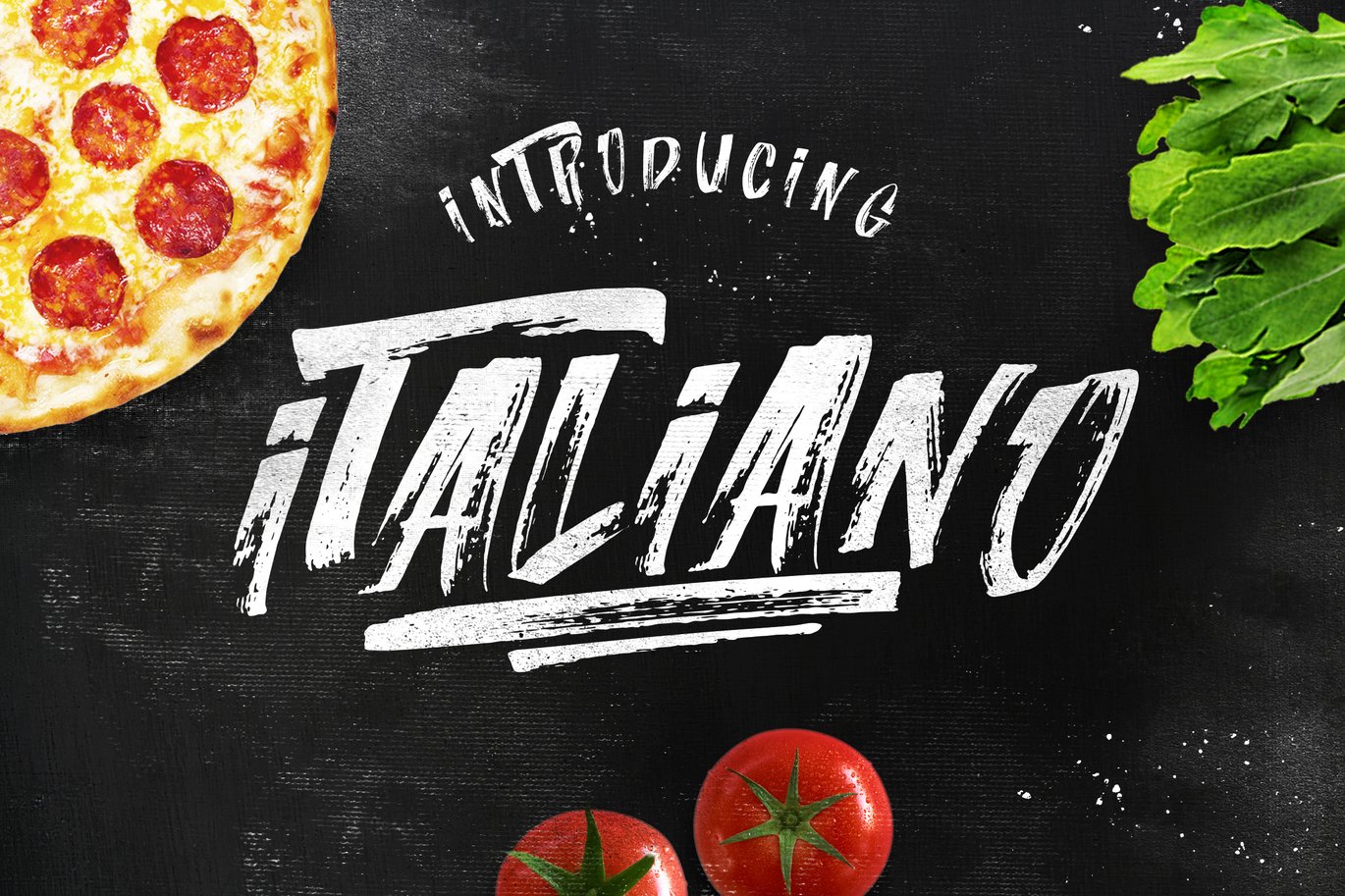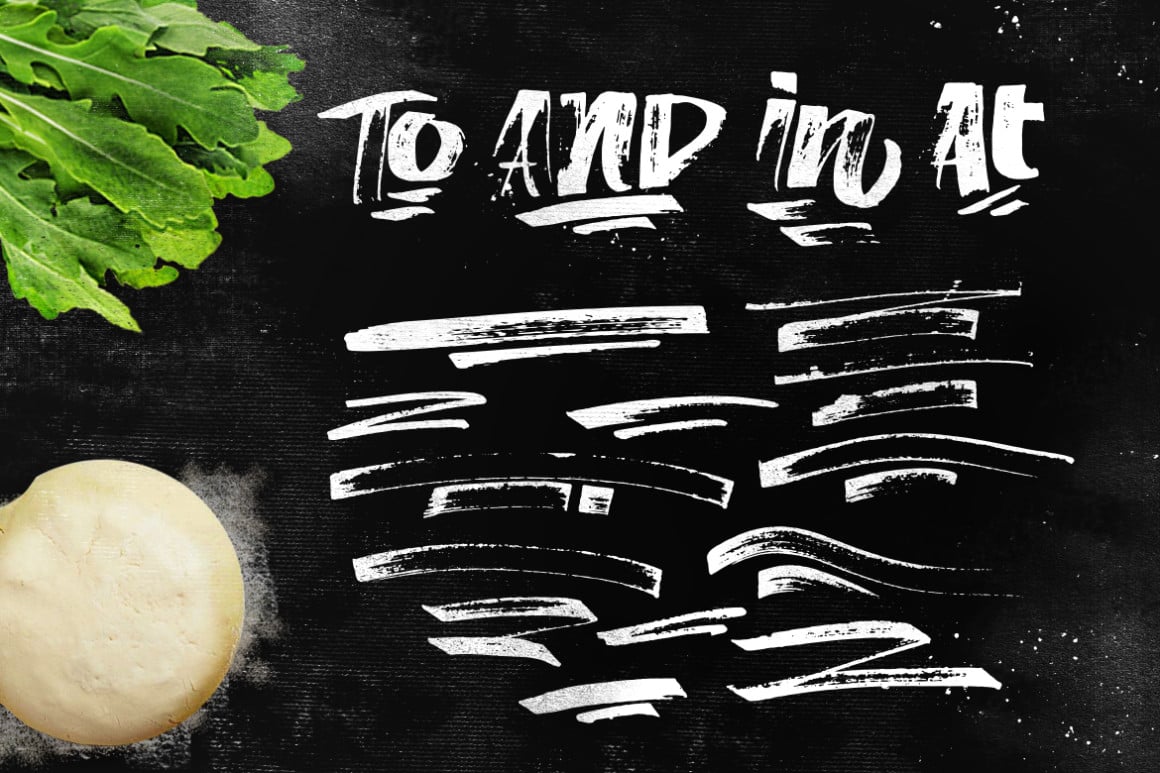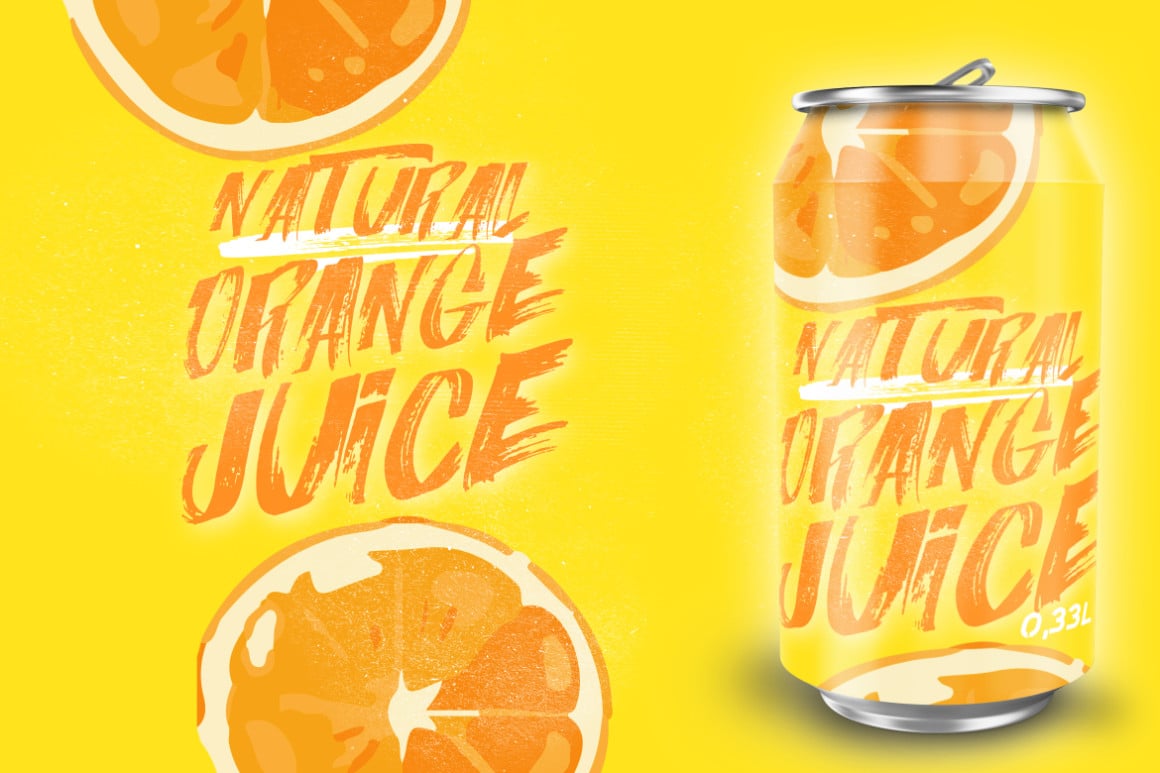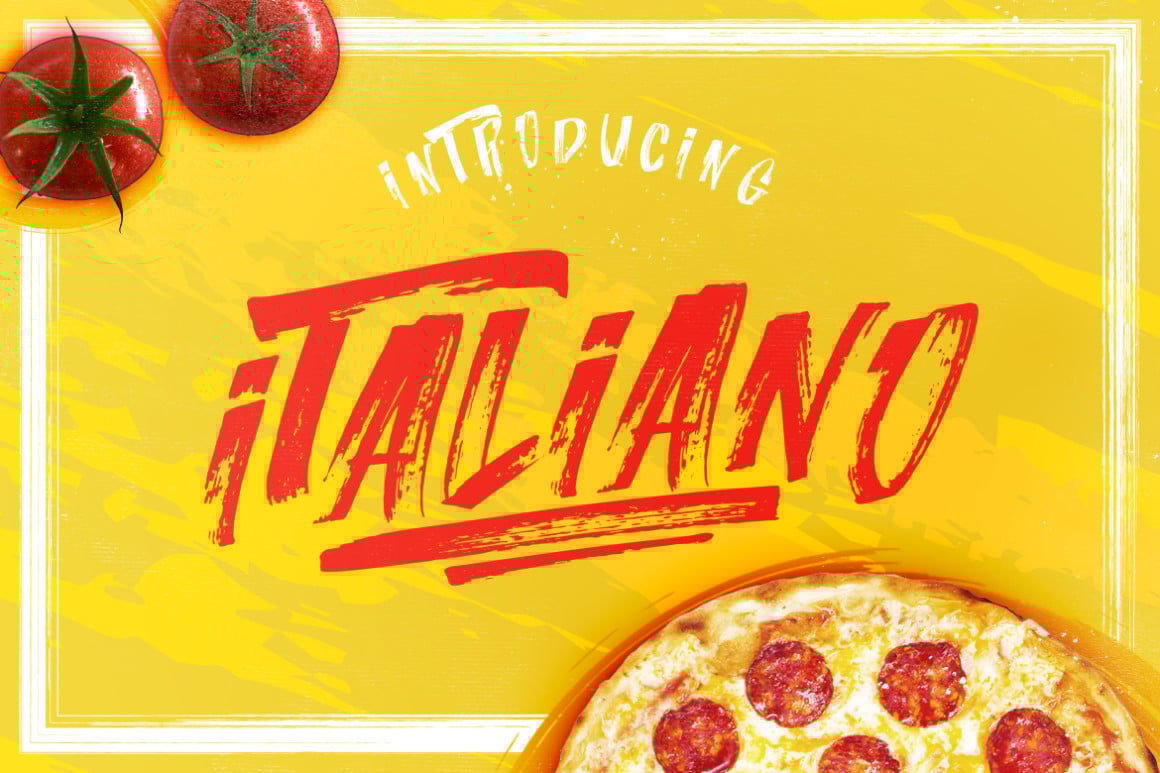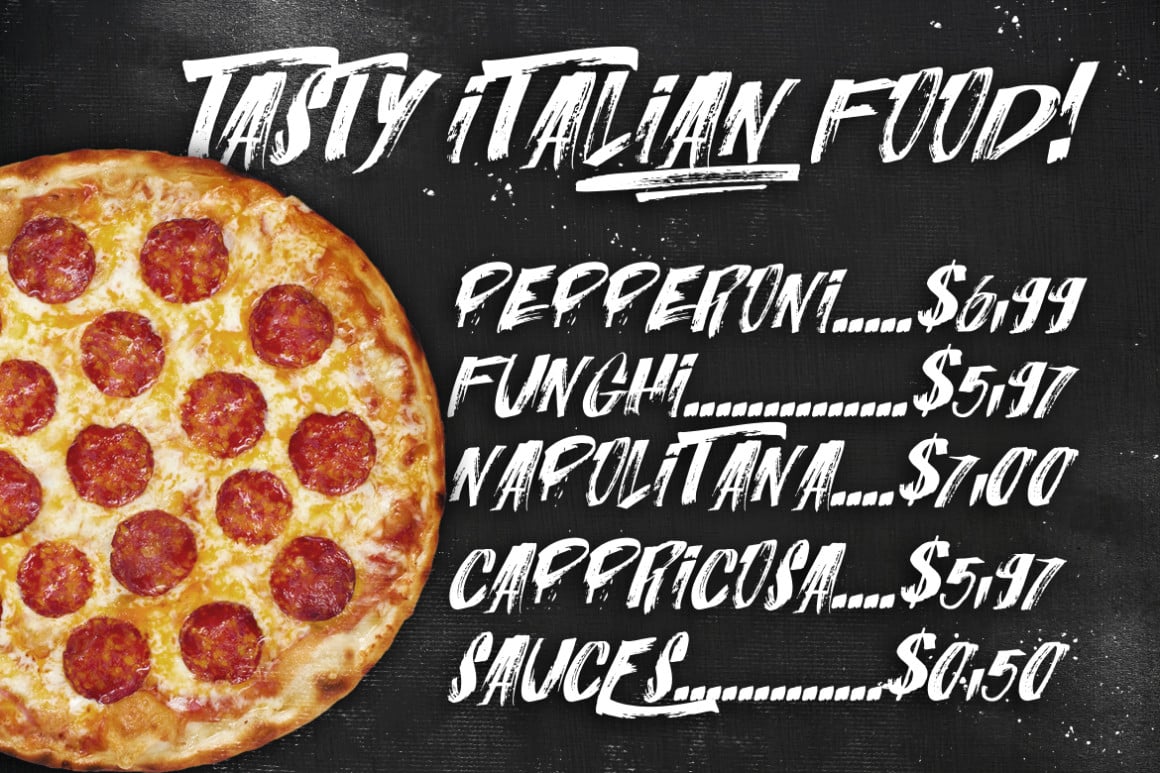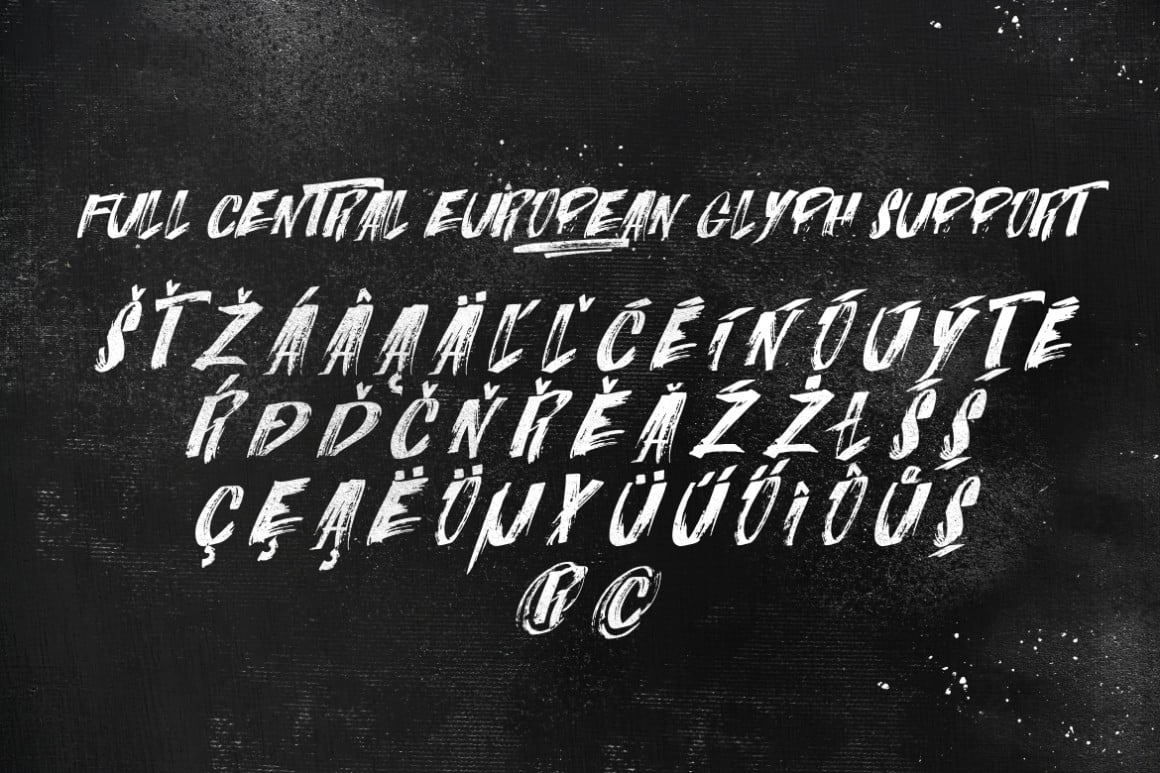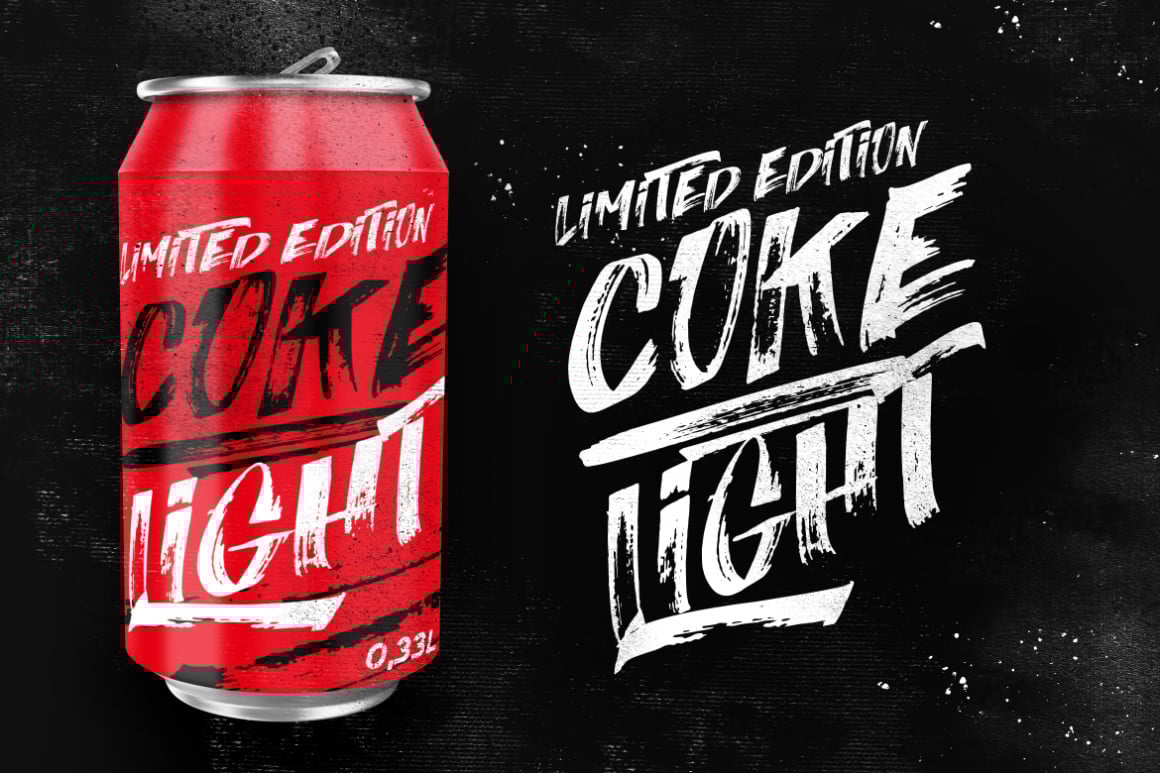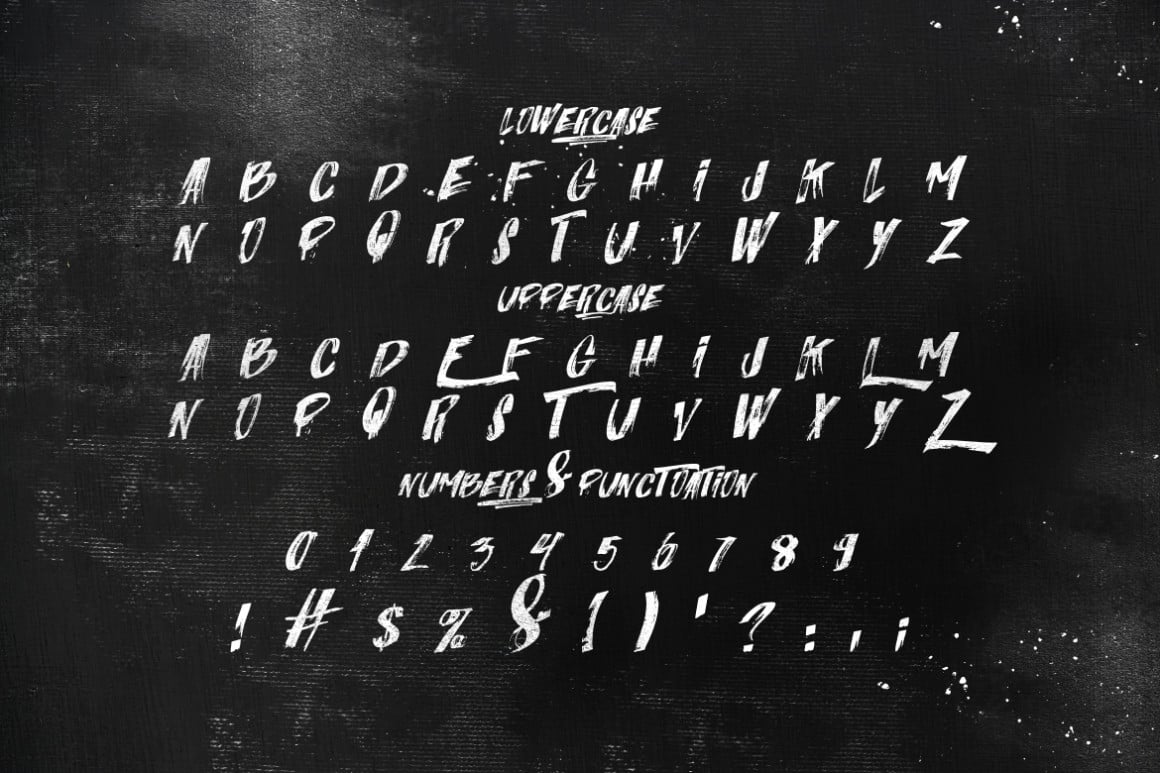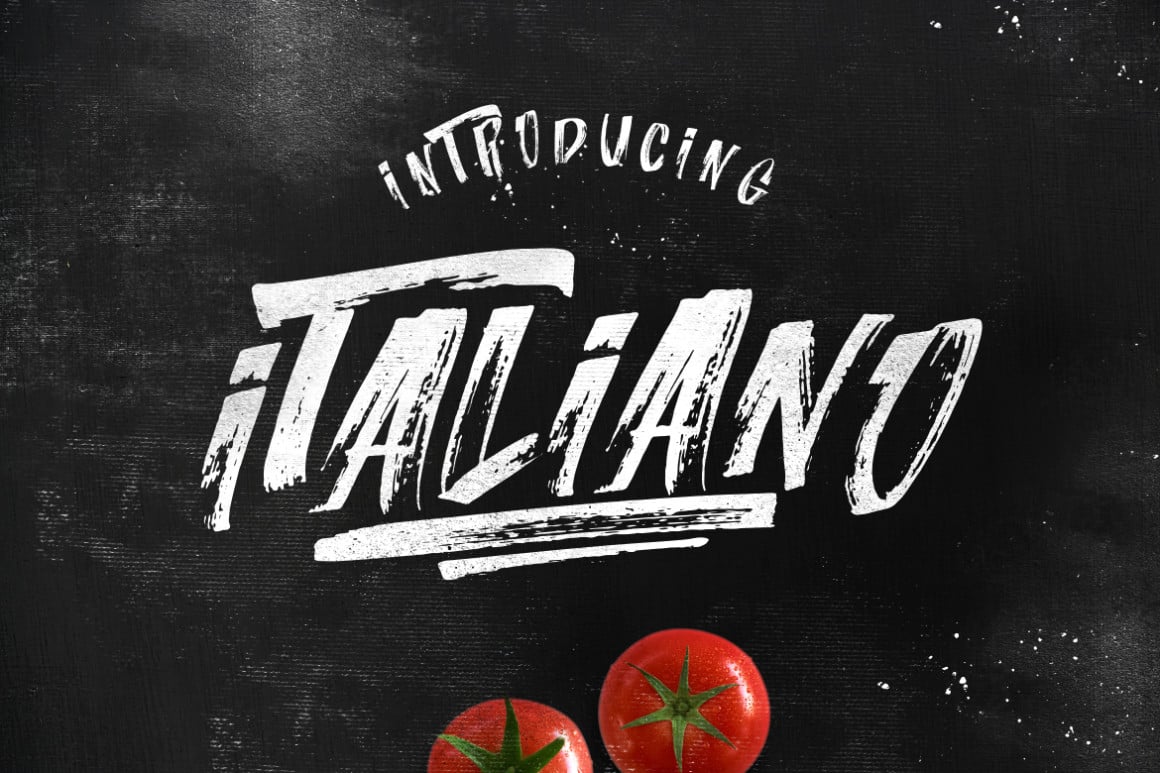
Italiano Brush Font
Italiano is brush font including all Central European glyphs and it comes in regular and slant version. Font bursting with energy, quick strokes and sharp edges. Ideal for loud messages. Very interesting to use for logos, name tags, handwritten quotes, product packaging, merchandise, social media & greeting cards .Also, ideal to make t-shirts design and other clothing products.
ITALIANO – Hand brushed font including all uppercase letters which has a complete set of A-Z, and support for whole Central European letters. Combinate uppercase and lowercase letters to get interesting text styles.
ITALIANO SLANT – 18° slant hand brushed font including all uppercase letters which has a complete set of A-Z, and support for whole Central European letters.
ITALIANO Swashes – EXTRA 13 Underline swashes and paint 6 splatters. Use them by typing any letter from A to Z and combinating them with regular letters.